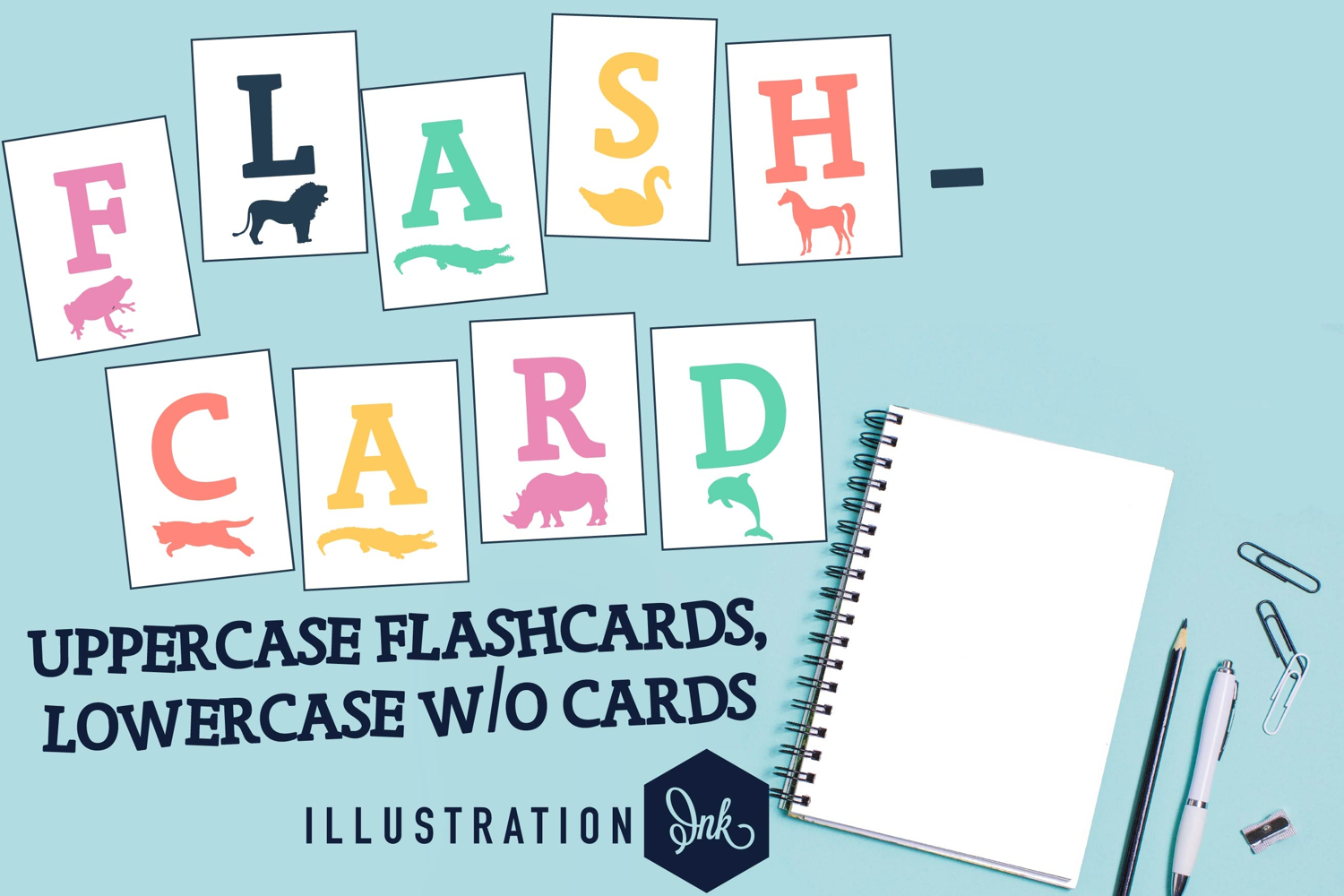
Flashcard Font Family
This hand-crafted font is a flashcard style font with letters and animals that begin with that letter. The uppercase has a card shape, the lowercase is without a card. An alt case of just the animals exists as well.